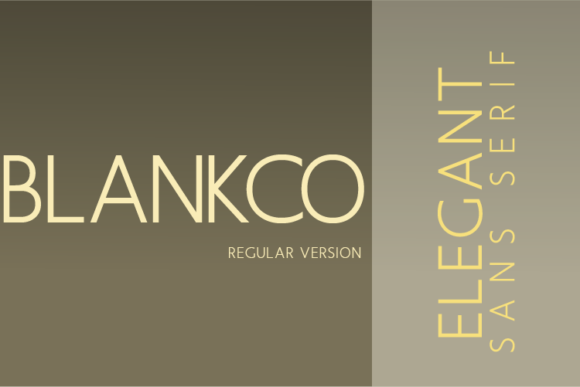
Blankco Font
**Introducing Blankco: The Font That Will Transform Your Designs**
Embark on a typographic adventure with Blankco, a stunning geometric sans-serif font that oozes modernity and sophistication. Inspired by the iconic Futura and Avant Garde, Blankco boasts a generous x-height, lending it an air of distinction and readability.
Its sharp edges and minimal stroke contrast evoke the essence of neo-grotesk fonts, exuding a timeless aesthetic that transcends trends. Blankco's versatility knows no bounds.
**Captivating Headlines That Command Attention:**
From magazine covers that demand instant intrigue to posters that ignite inspiration, Blankco's clean lines and bold presence will make your headlines unforgettable. Each letter exudes confidence, ensuring that your messages will resonate with impact and leave a lasting impression.
**Branding with Unforgettable Impact:**
Create a brand identity that radiates professionalism and modernity with Blankco. Its geometric forms and crisp edges convey a sense of precision and innovation, making it the perfect choice for businesses seeking to establish a strong and memorable presence.
**Websites that Engage and Inspire:**
Transform your website into a visually captivating experience with Blankco. Its clean typography enhances readability, while its unique geometric style adds a touch of intrigue that keeps visitors engaged and eager to explore further.
**Limitless Creative Possibilities:**
Blankco's versatility doesn't end there. Its versatility extends to a vast array of design projects, including:
* Flyers that spark excitement
* Brochures that inform and impress
* Packaging that attracts and delights
* Social media graphics that stand out from the crowd
**Embrace the Power of Blankco:**
With Blankco, you'll have the power to create designs that are both visually stunning and effectively communicate your message. Its versatility makes it the perfect choice for both personal and professional projects, allowing you to express your creativity and achieve exceptional results.
Experience the transformative power of Blankco today and unlock a world of typographic excellence!